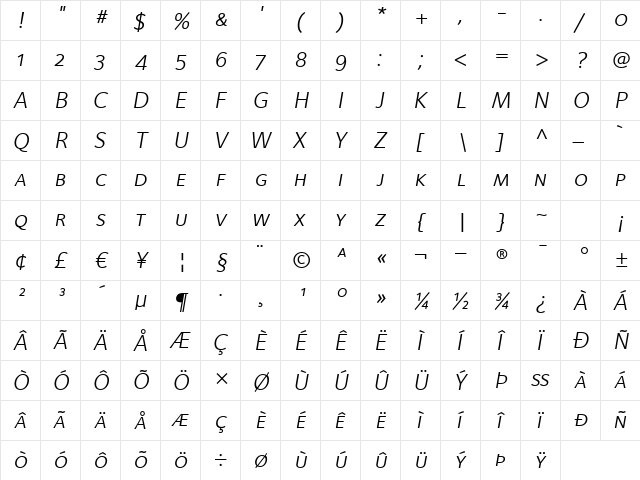
FoundrySterling-BkItalicExpert Regular
Design Context for FoundrySterling-BkItalicExpert Typeface
FoundrySterling-BkItalicExpert offers clean, dependable letterforms without strong stylistic allegiance, making it a practical choice for designers who need flexibility. The dynamic lean of this cut emphasises speed and emphasis in any layout.
Pro Tip: Use FoundrySterling-BkItalicExpert for emphasis, pull quotes, and subheadings where its slanted energy can add rhythm to the layout.